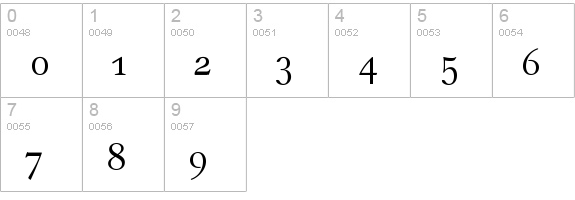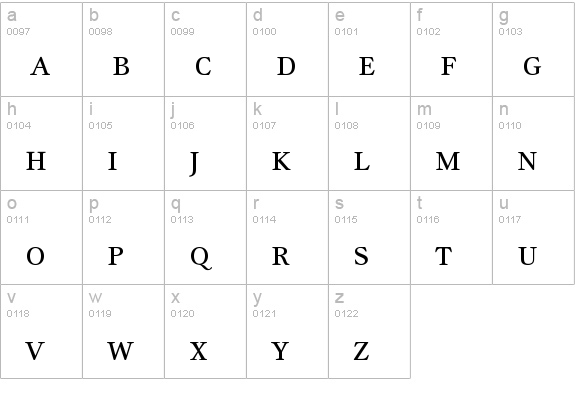
GammaSCEF-Book Font Details
GammaSCEF-Book is a comfortable, highly readable variant in the GammaSCEF typeface family \xE2\x80\x94 well suited to long-form body text, articles, and editorial content.